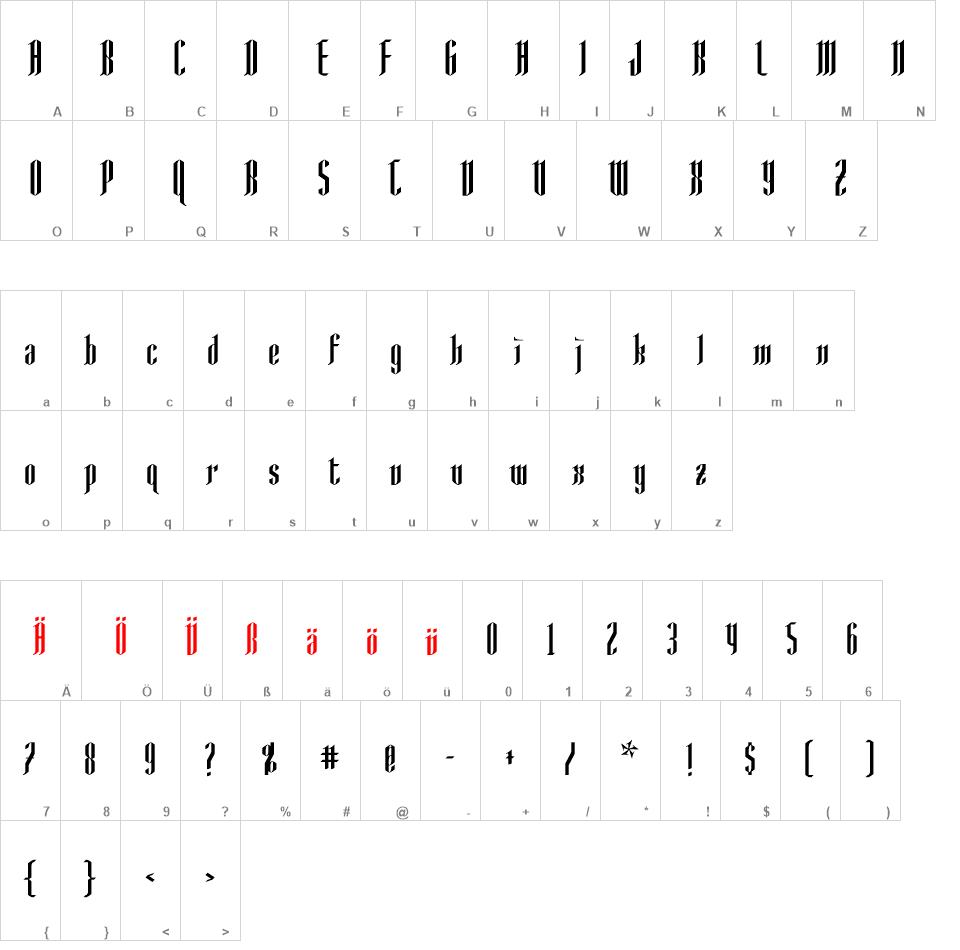
Anglo Ysgarth
AngloYsgarth is a tall, olde-world typeface with minor flourishes based on runes presented in Ragnorok Press’s World of Ysgarth role-playing game, though presented here in readable form. Includes full alphabet, extended punctuation, euro. Includes regular bold, italic, and bold-italic faces.